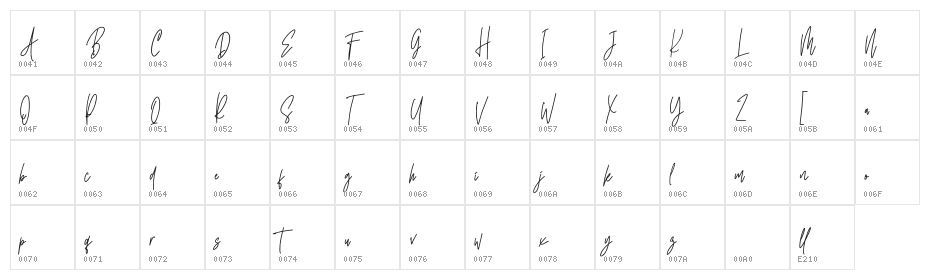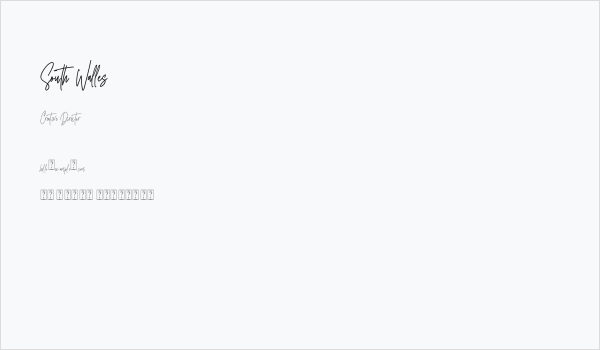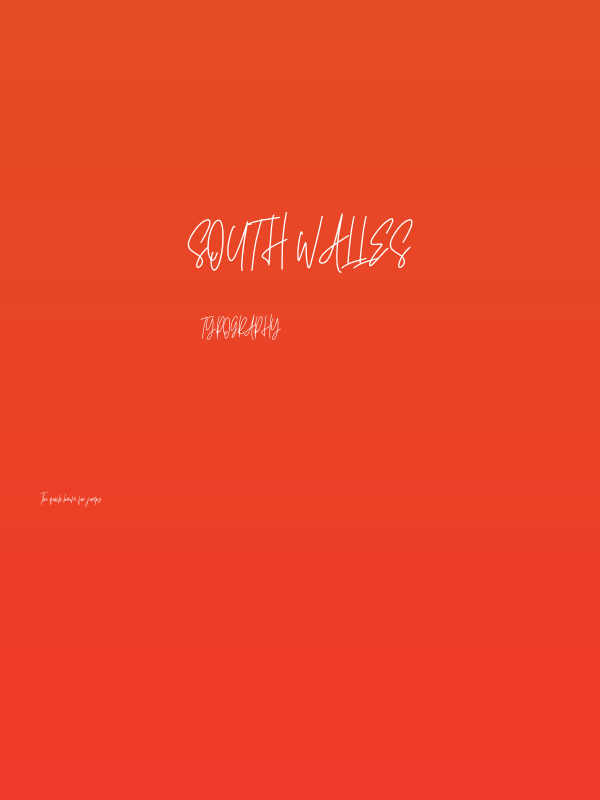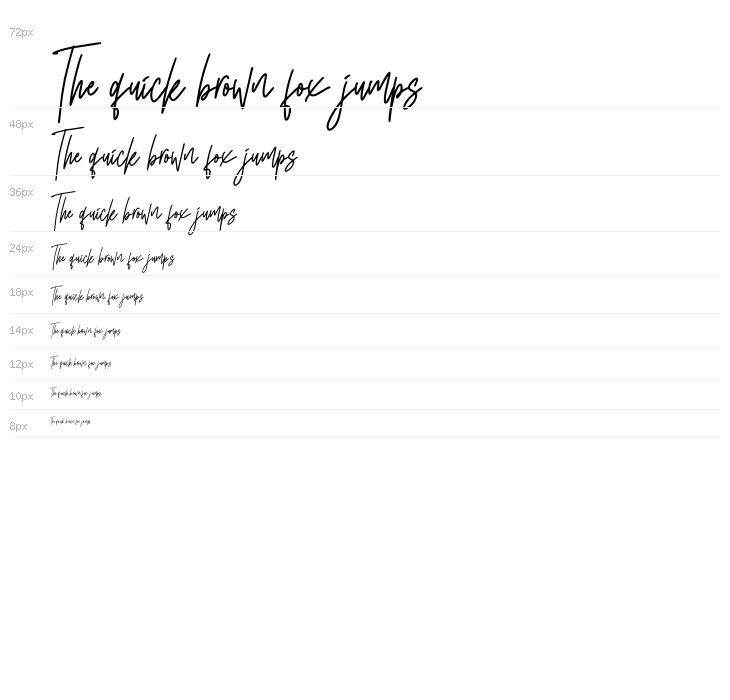
South Walles Font
South Walles Description
This font features a dynamic and expressive handwritten style, characterized by fluid and elongated strokes that convey a sense of elegance and spontaneity. The uppercase letters exhibit a playful yet sophisticated flair, with varying stroke thicknesses that add depth and interest. The lowercase letters maintain a consistent flow, enhancing readability while preserving the font's artistic nature. The absence of special characters suggests a focus on alphabetic expression, making it ideal for creative projects. The overall design is modern and stylish, suitable for a range of applications where a personal touch is desired.
| Use Case | Logos, Invitations, Artistic Projects |
| Proposed Projects | Ideal for wedding invitations, personal branding, greeting cards, and artistic posters. |